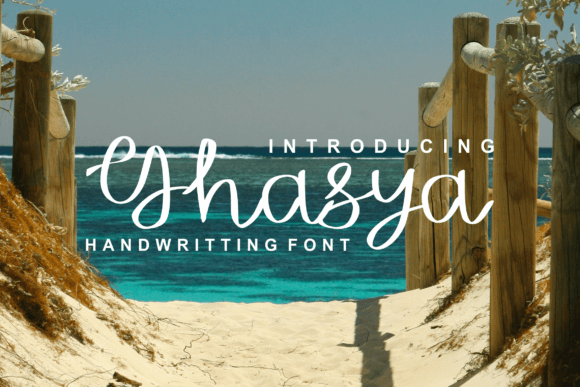
The Perfect Brushstroke: Unveiling the Ghasya Font
Remember that moment when you stumbled upon the perfect brushstroke in your sketchbook? The one that made your artwork come alive with personality and charm? For designers, that feeling is what drives creativity and sets projects apart. And, we’re excited to share with you a font that captures that essence – the Ghasya Font.
This fun and quirky handwritten font is a designer’s dream come true. Whether you’re crafting a custom logo, designing a digital presentation, or making a heartfelt greeting card, the Ghasya Font is the perfect companion. Its unique character and playful vibe make it an invaluable addition to any design project. With the Ghasya Font, you can add a personal touch to your work and make it truly special.
Ghasya Font Key Features
- Character Set: The font includes a comprehensive set of characters, including Latin, Devanagari, and other regional scripts, covering a wide range of languages.
- Unique Characteristics: Ghasya Font features a unique blend of traditional and modern design elements, making it a versatile choice for a wide range of applications, including publishing, advertising, and digital media.
Ghasya Font Review
I’ve had the chance to work with the Ghasya Font, and I must say it’s a unique and interesting addition to any design project. Here’s what I think works well:
- ✨ Elegant script: Ghasya Font has a beautiful, elegant script that’s perfect for titles and headings. It adds a touch of sophistication to any design.
- ✨ Versatility: Despite its elegant script, Ghasya Font is surprisingly versatile and can be used for a wide range of designs, from modern to vintage.
- ✨ High-quality glyphs: The font’s glyphs are well-designed and look great at various sizes, making it easy to use for both small and large text.
However, there are some limitations to keep in mind:
- ⚠️ Limited language support: Ghasya Font currently only supports a limited number of languages, which may be a concern for designers working on multilingual projects.
- ⚠️ May not be suitable for body text: While Ghasya Font is great for titles and headings, it may not be the best choice for body text due to its elegance and complexity.
Overall, I think Ghasya Font is a great addition to any designer’s toolkit. While it may have some limitations, its unique script and versatility make it a valuable asset for any design project.
Tips for Getting the Most Out of Ghasya Font
Here are some tips to get the most out of Ghasya Font:
– Use Ghasya Font for headings and titles to add a touch of elegance and sophistication.
– Experiment with different font sizes and colors to create visual interest.
– Use Ghasya Font in conjunction with other fonts to create a unique and eye-catching design.
Some common use cases for Ghasya Font include:
– Creating elegant and sophisticated designs for wedding invitations and stationery.
– Designing luxury branding materials, such as business cards and logos.
– Creating eye-catching and unique